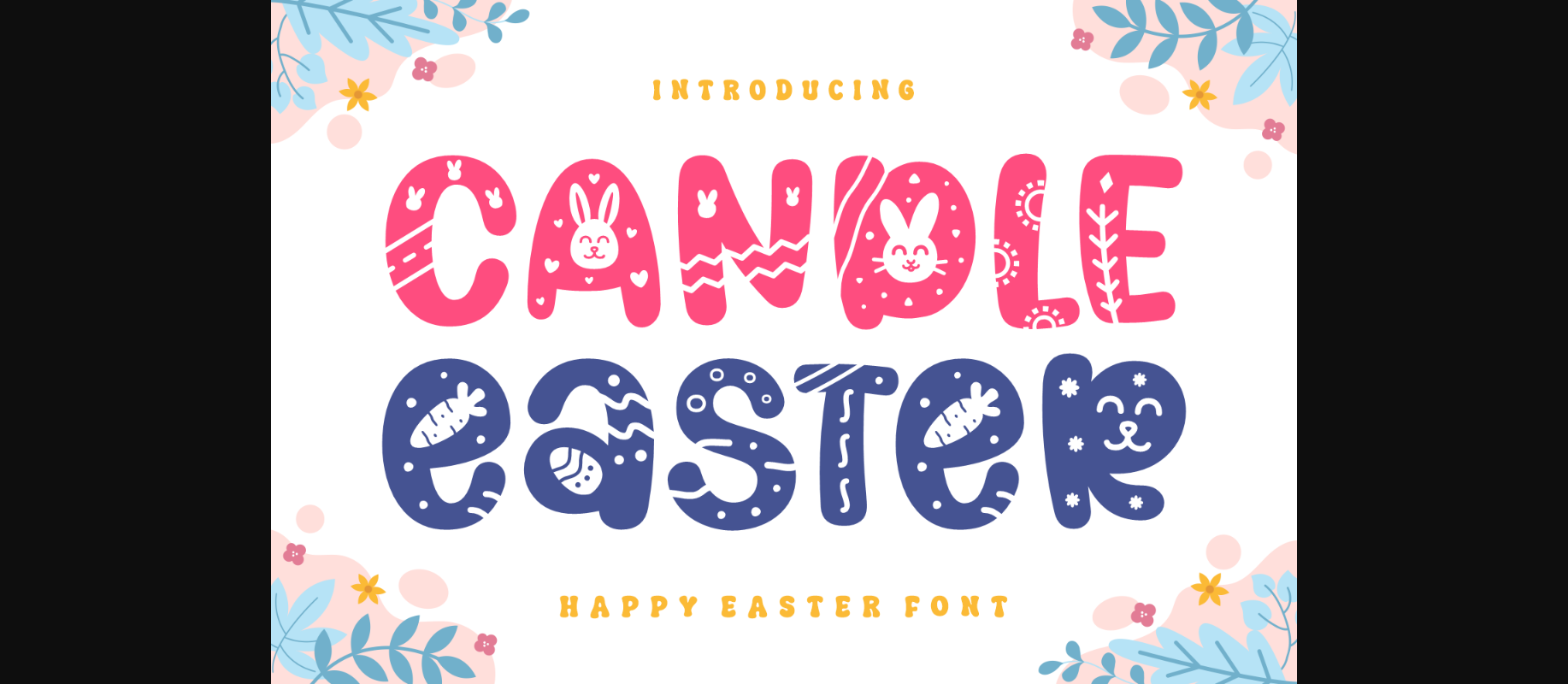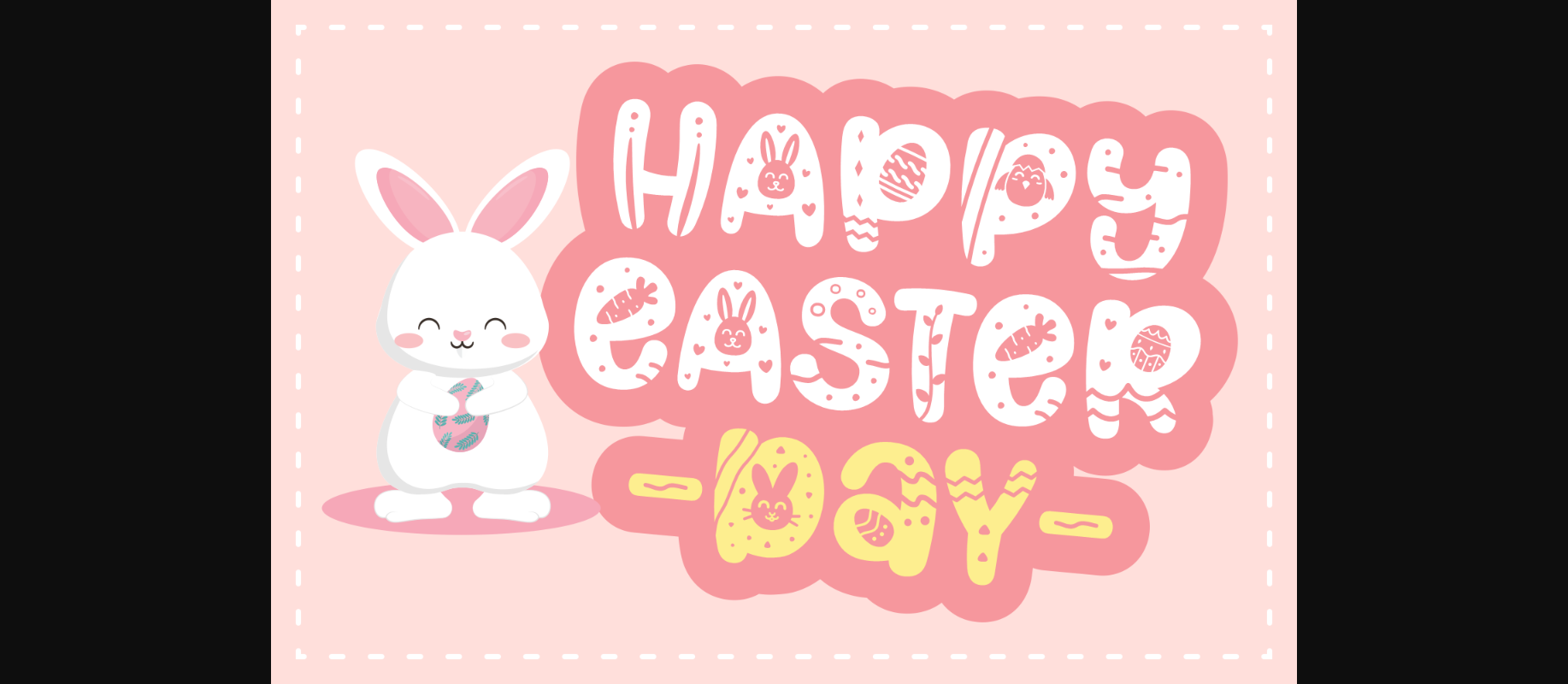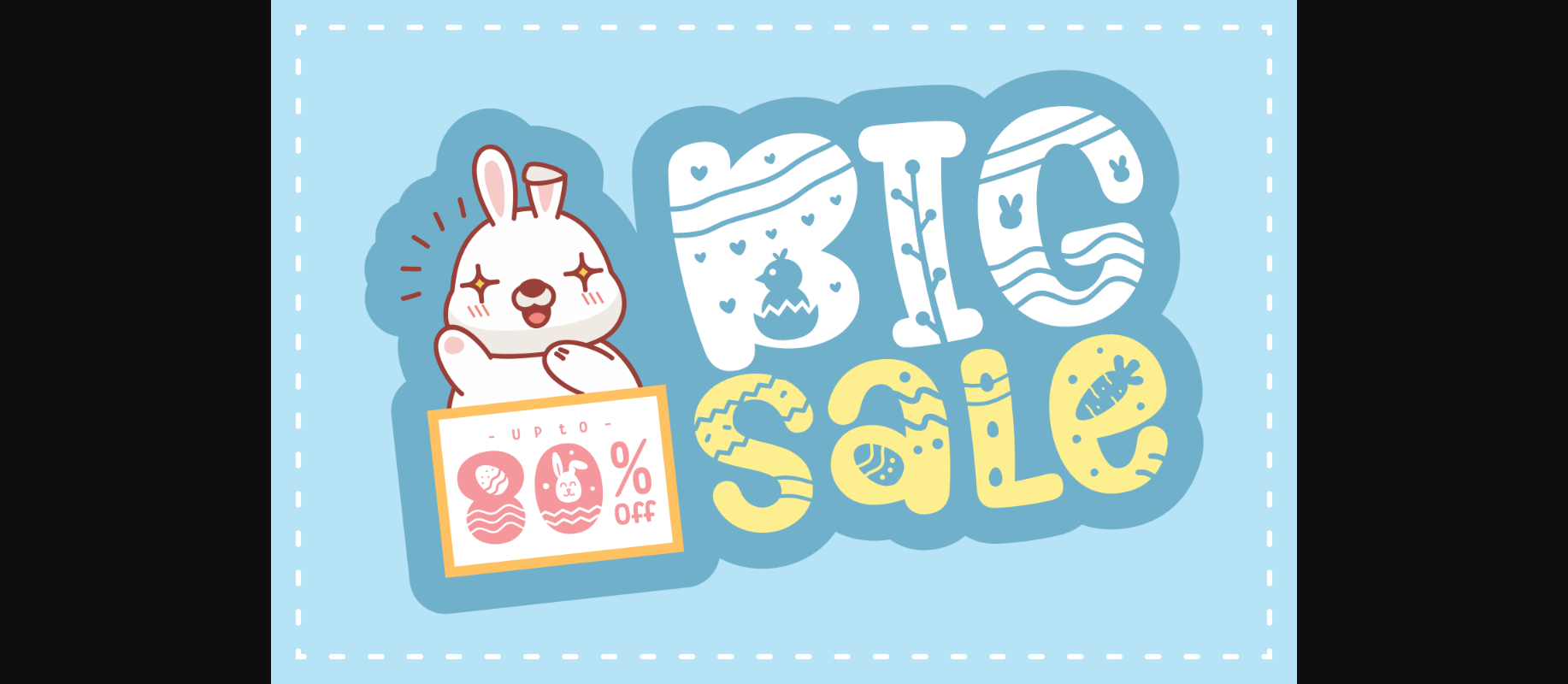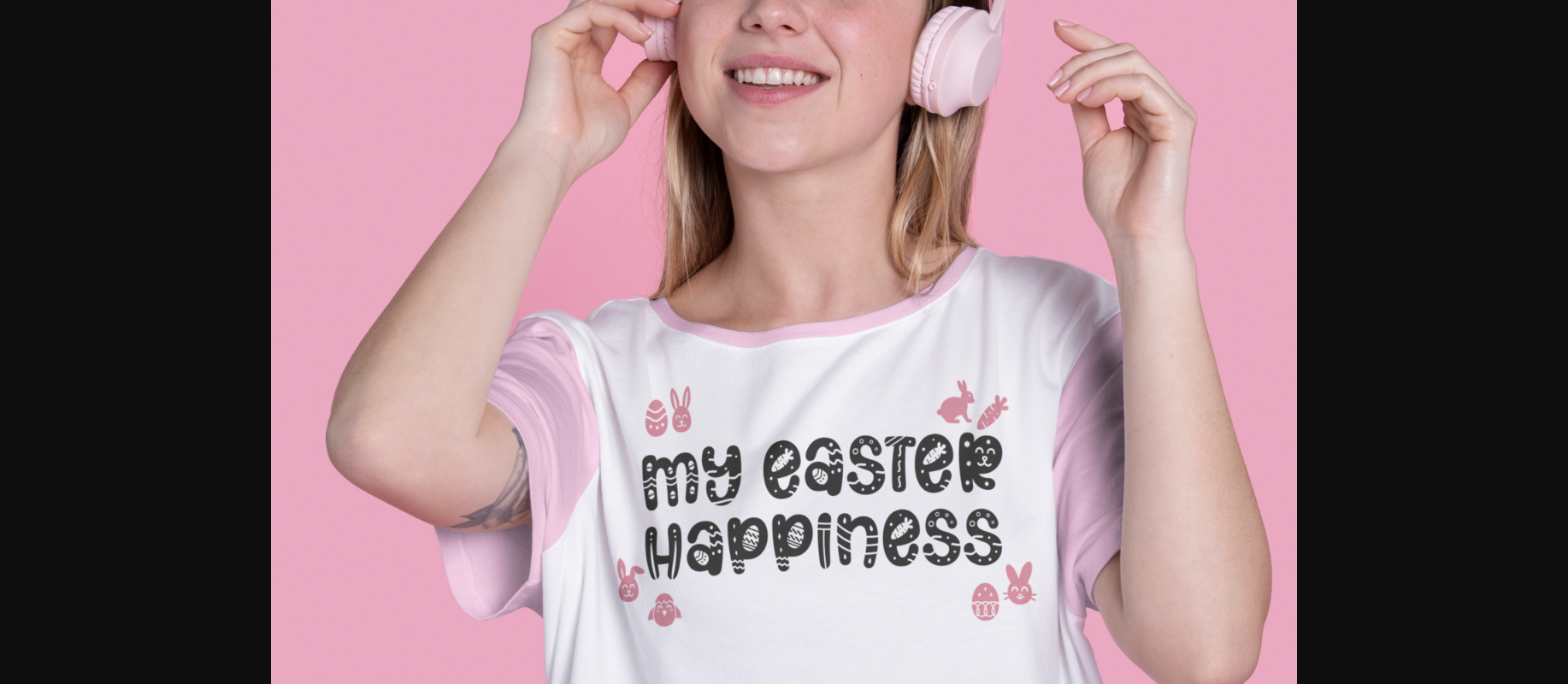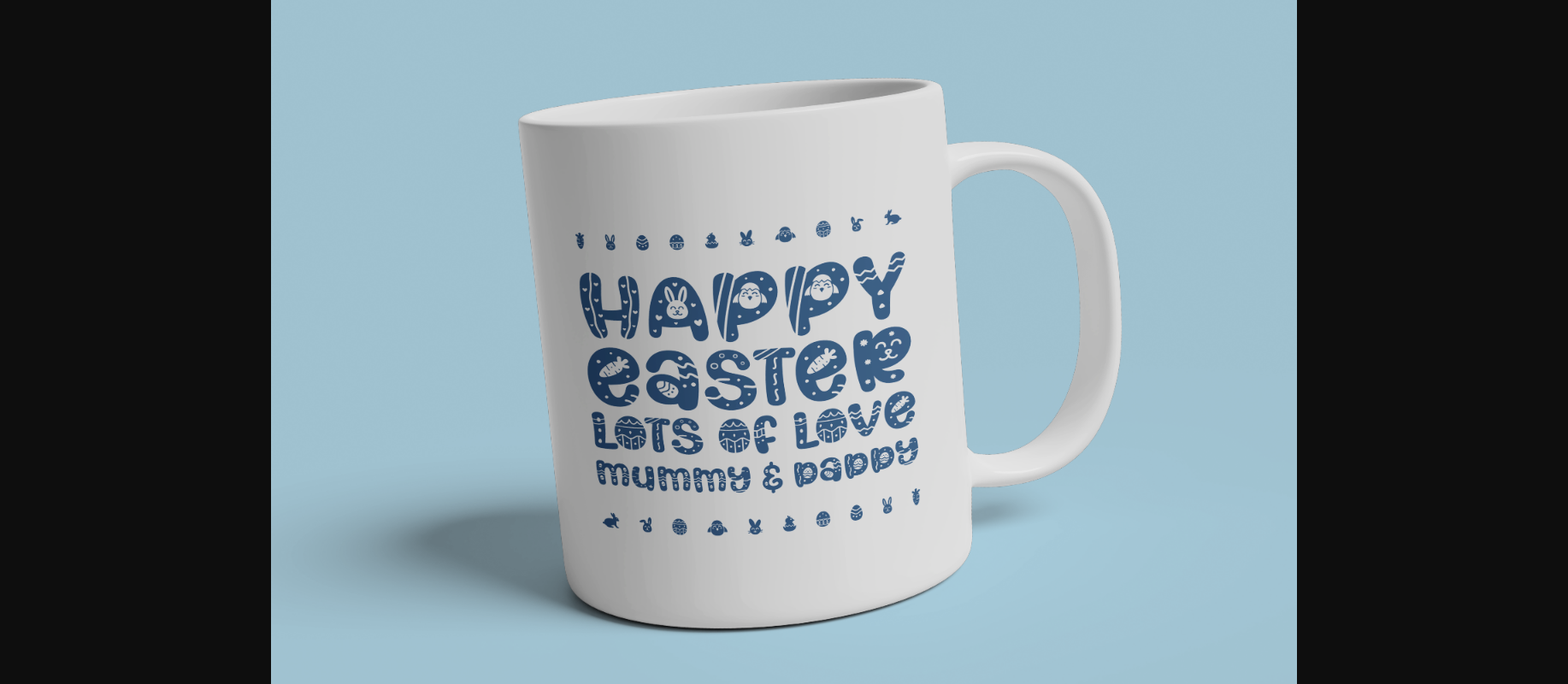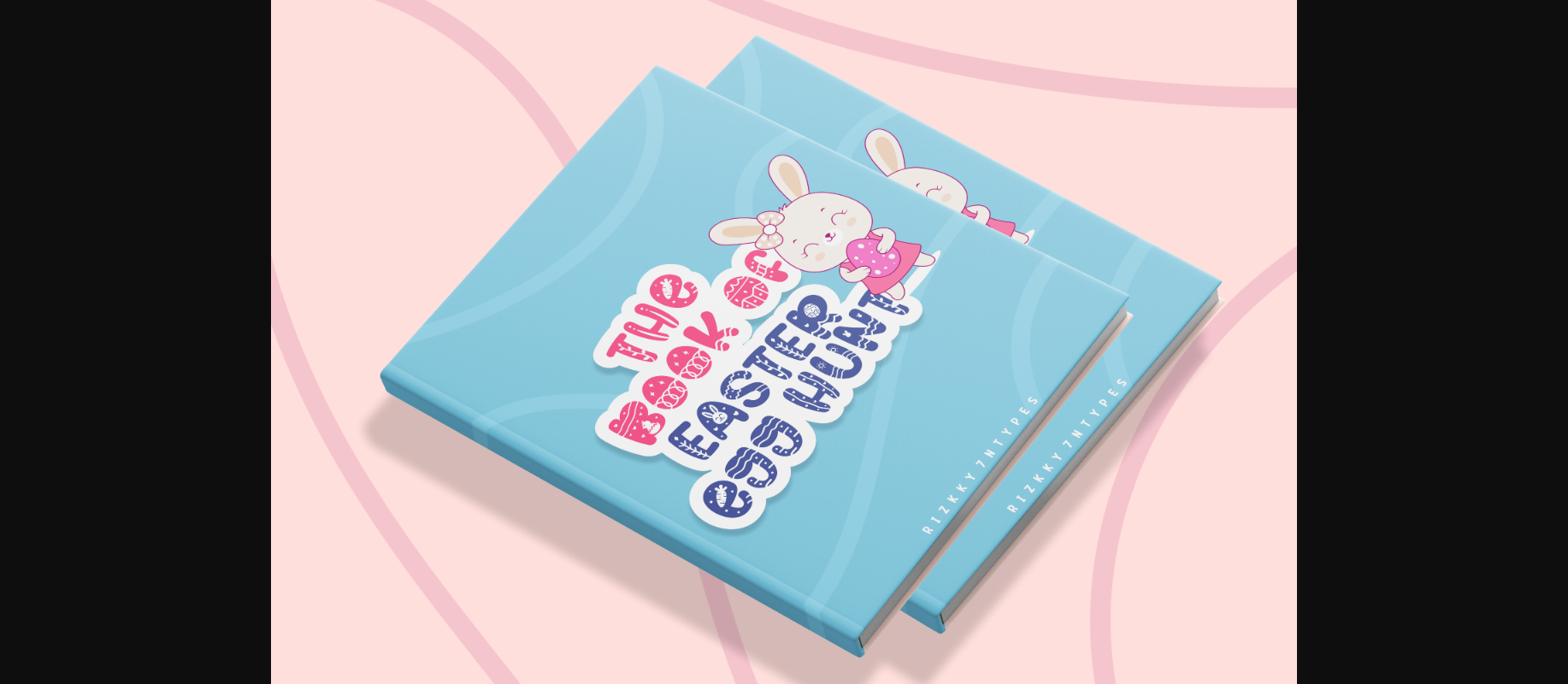
About Candle Easter Font
Candle Easter is a decorative font that is the perfect way to add a touch of cuteness and whimsy to your Easter designs. The playful, rounded letters are adorned with charming illustrations of bunnies, eggs, and spring flowers, creating a cheerful and joyful atmosphere. Ideal for Easter greeting cards, social media posts, and other festive projects.